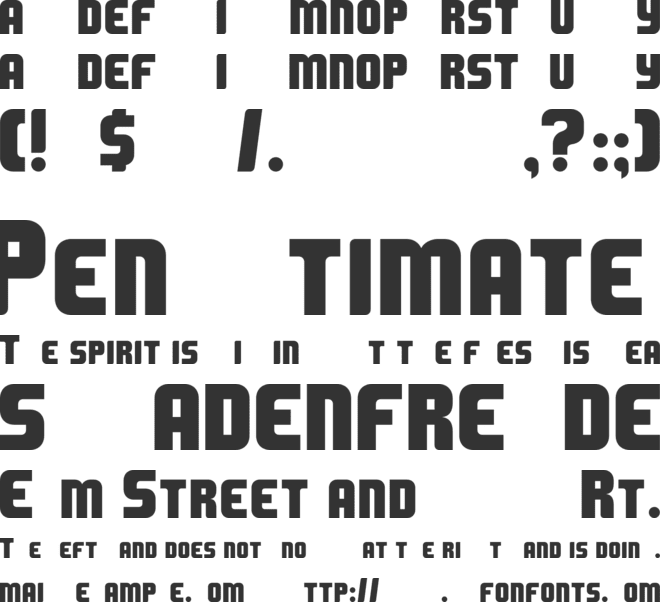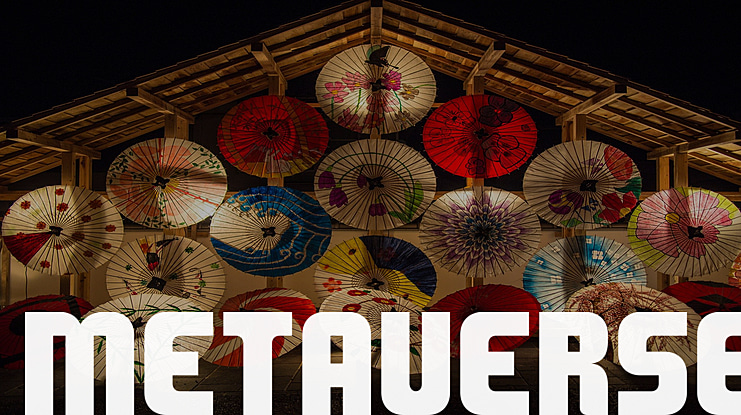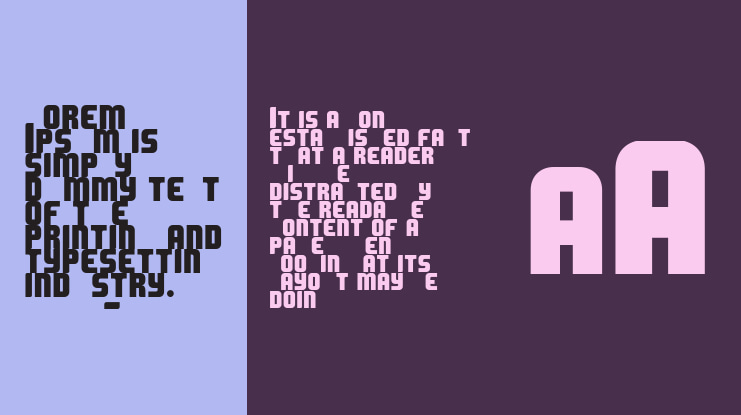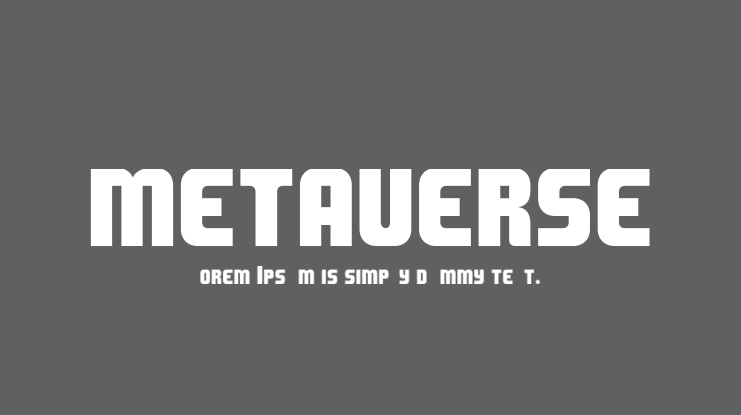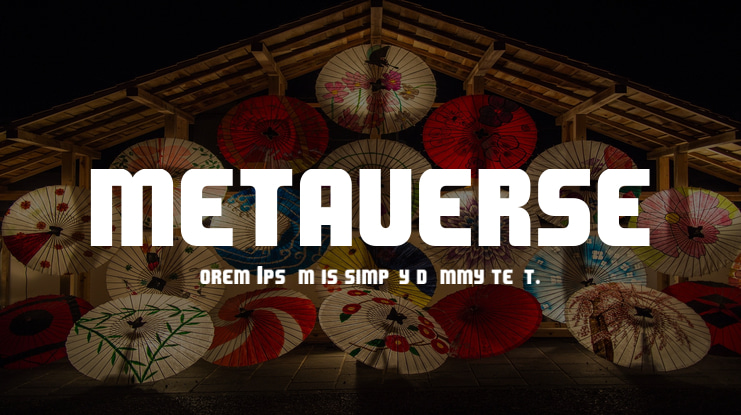
METAVERSE Font
Wanted to create a simple typeface using only rectangles and curves, with the advent of a new age of simulation and learning this our latest triple colour font, just had to enter your tablets before you yourself decide to enter the METAVERSE the full version available ONLY on Etsy, this is a demo version that includes 13 capital letters.